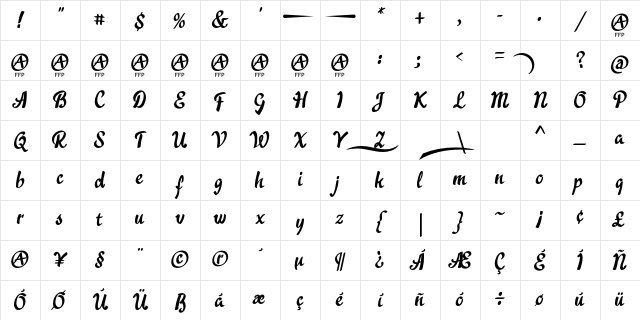
Acratica FFP Free Font
Acratica FFP
Foundry: Fernando Haro
Designer: deFharo
Design Context for Acratica
Acratica is a composed and adaptable typeface that performs quietly and consistently across a wide range of design contexts.